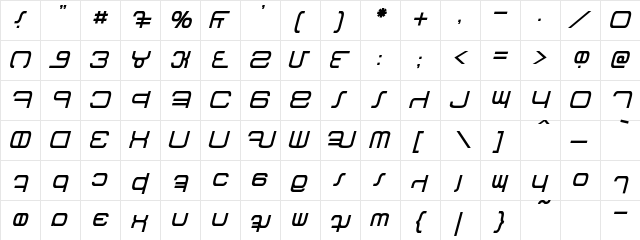
Betazed Italic
| Foundry | Neale Davidson |
| Designer | Neale Davidson |
Design Context for Betazed Typeface
Betazed takes a measured approach to typography — its balanced proportions and neutral character make it a reliable workhorse for both digital and print work. The slanted form adds forward momentum and visual energy.
Pro Tip: Use Betazed for emphasis, pull quotes, and subheadings where its slanted energy can add rhythm to the layout.